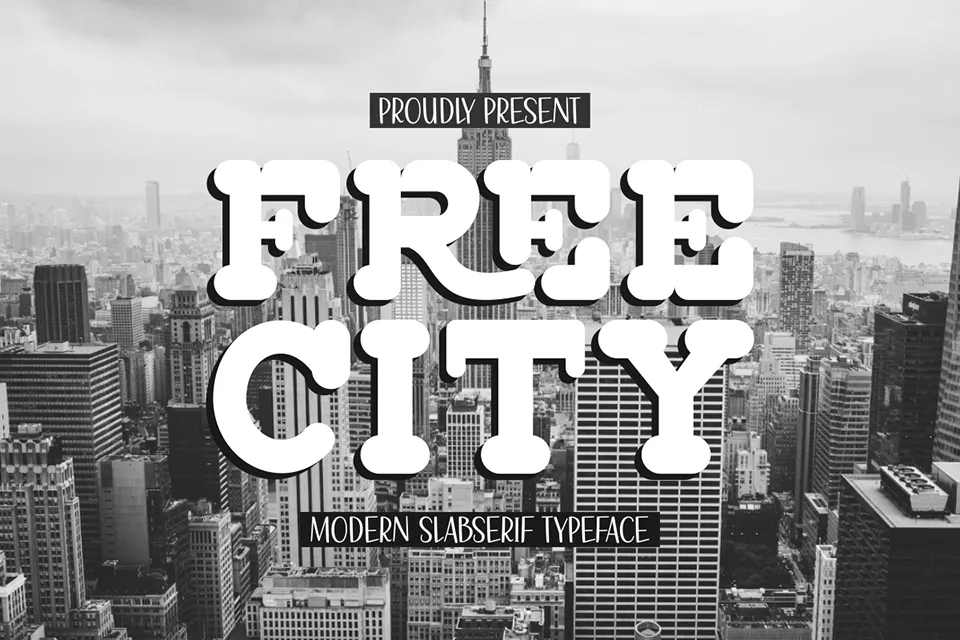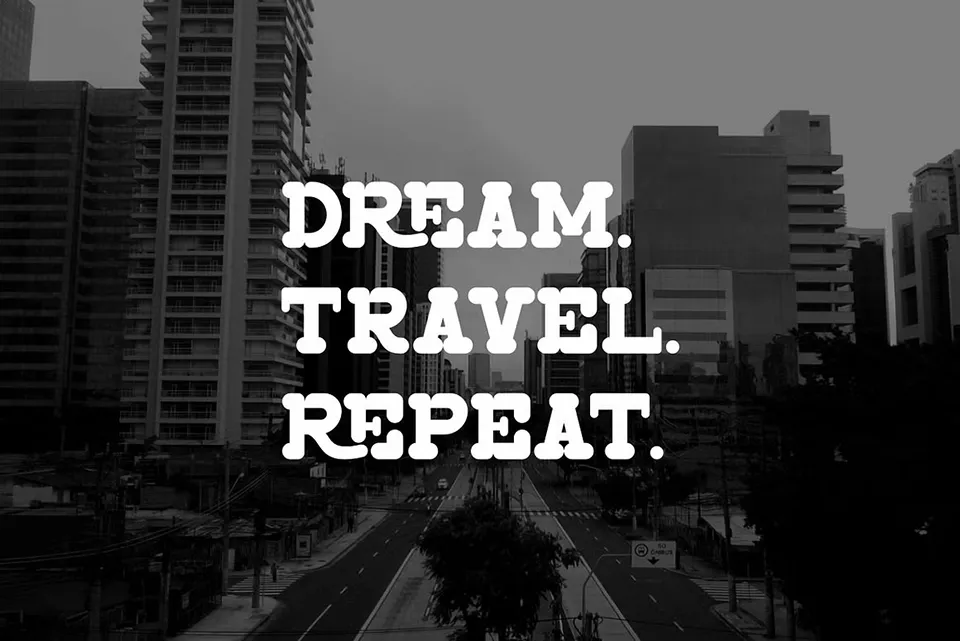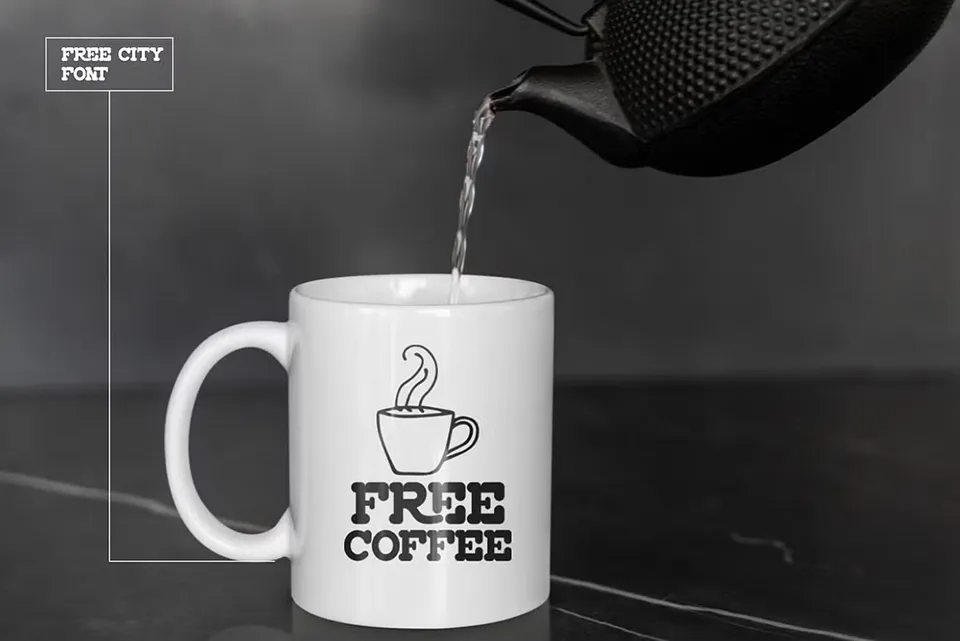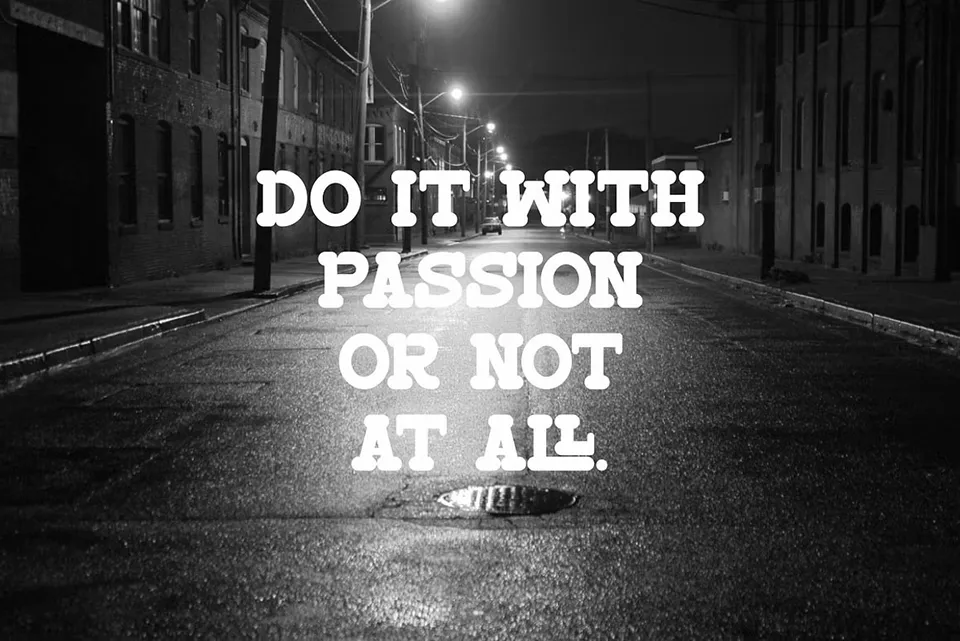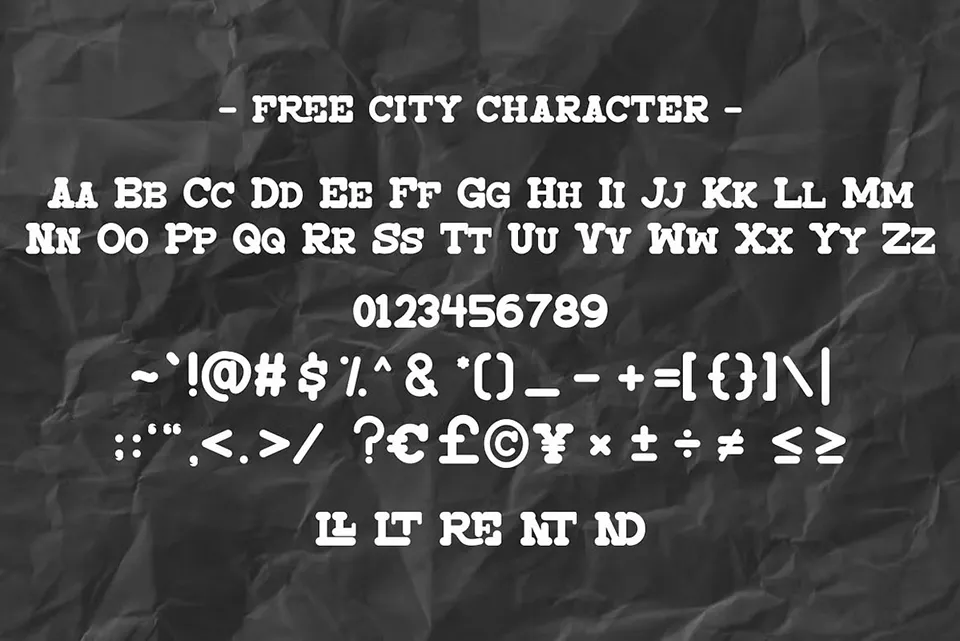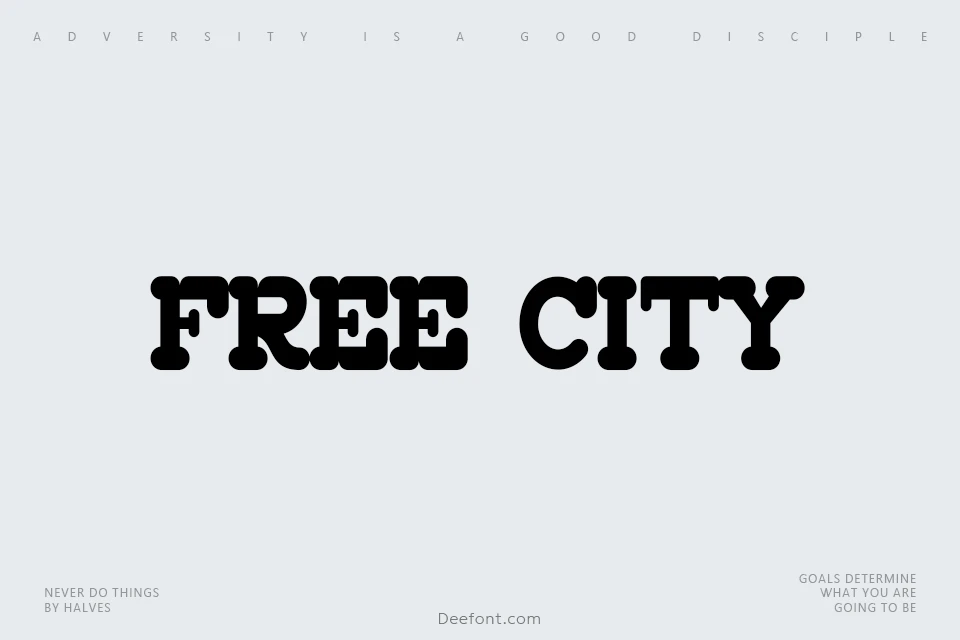
Free City Font
Free City Font is a bold and modern slab serif typeface that combines vintage charm with contemporary design. Its sturdy, squared serifs and dramatic appearance make it ideal for various creative projects, including logos, titles, posters, book covers, and branding. The font’s commanding presence ensures it stands out in display applications while maintaining a touch of elegance. Free City is available for personal use, offering designers the opportunity to explore its potential in crafting eye-catching visuals. For commercial use, licensing is required to unlock its full capabilities for professional projects.